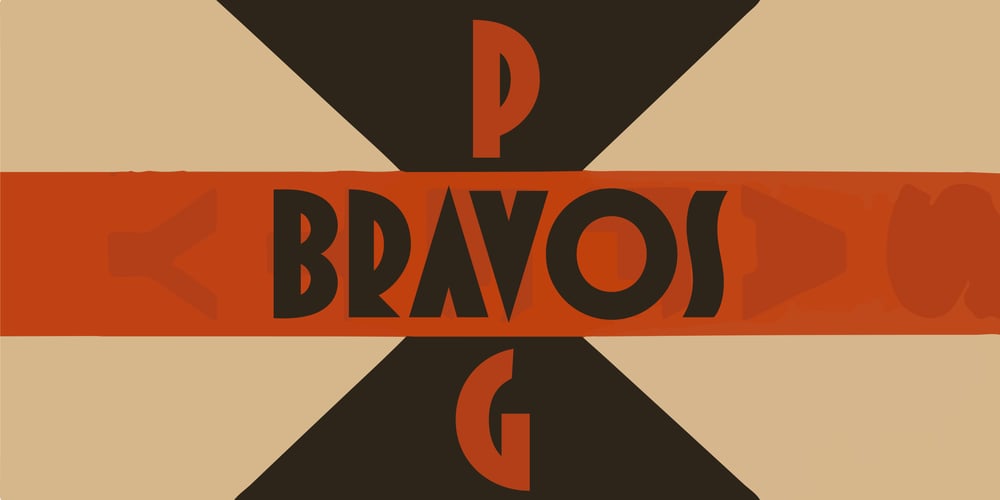
PAG Bravos Font Family was designed by Ryoichi Tsunekawa and published by Prop-a-ganda. PAG Bravos contains 1 styles and family package options. Prop-a-ganda offers retro-flavored fonts inspired by lettering on retro propaganda posters, retro advertising posters, retro packages all the world over. This is perfect font for your retrospective project. PAG Bravos is a condensed geometric font with a retro touch. It is a great performer in posters, logo and covers.